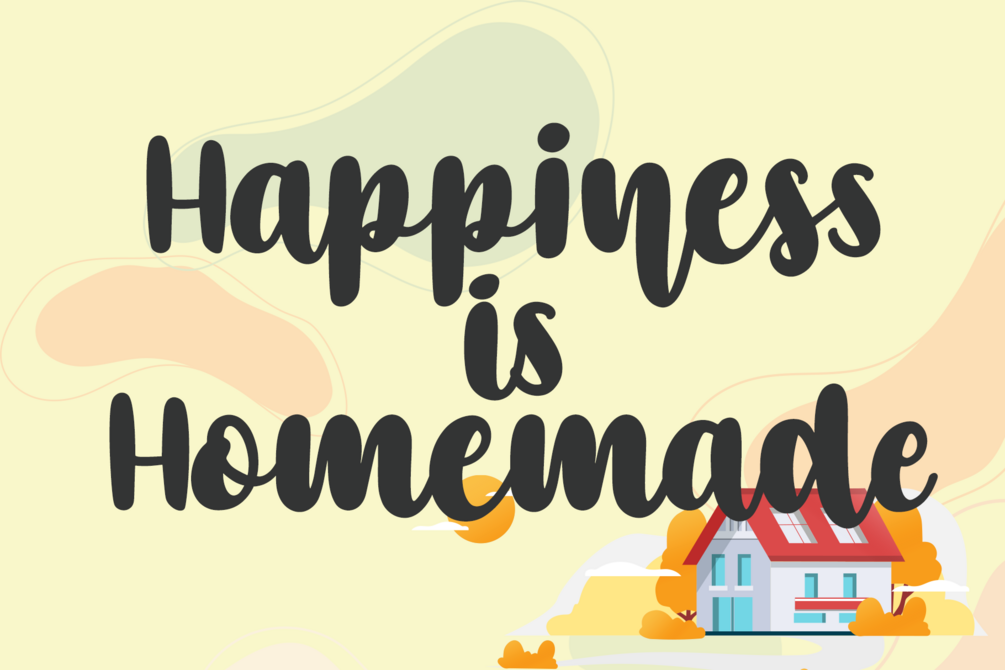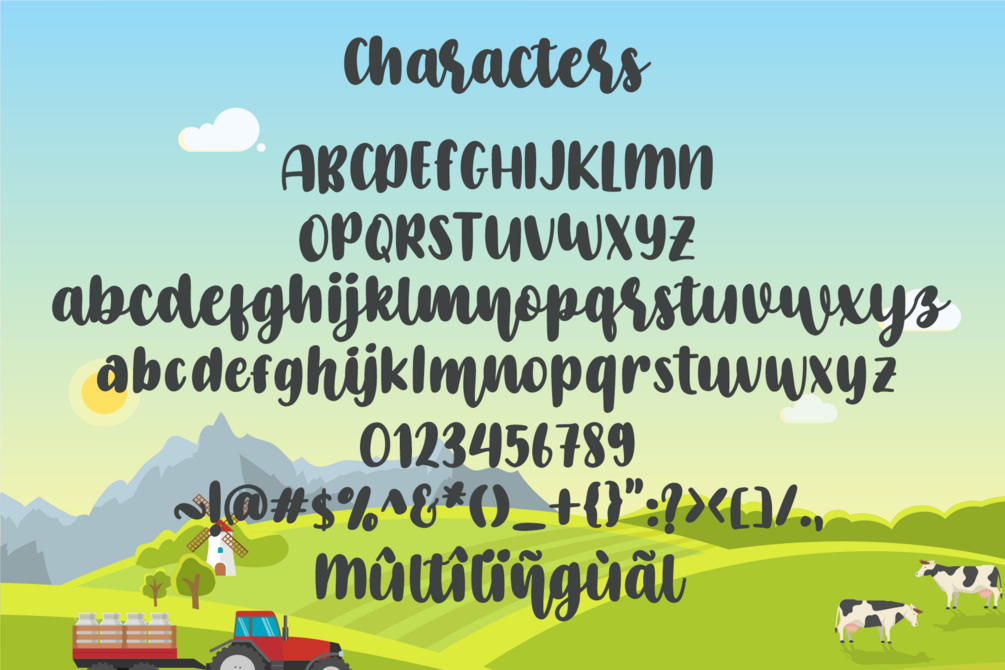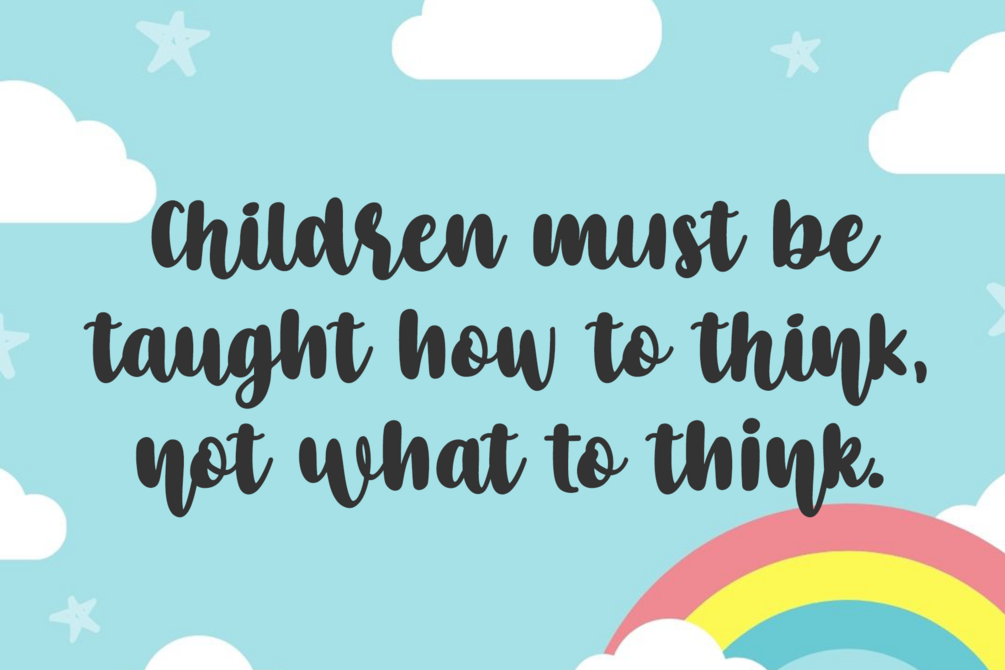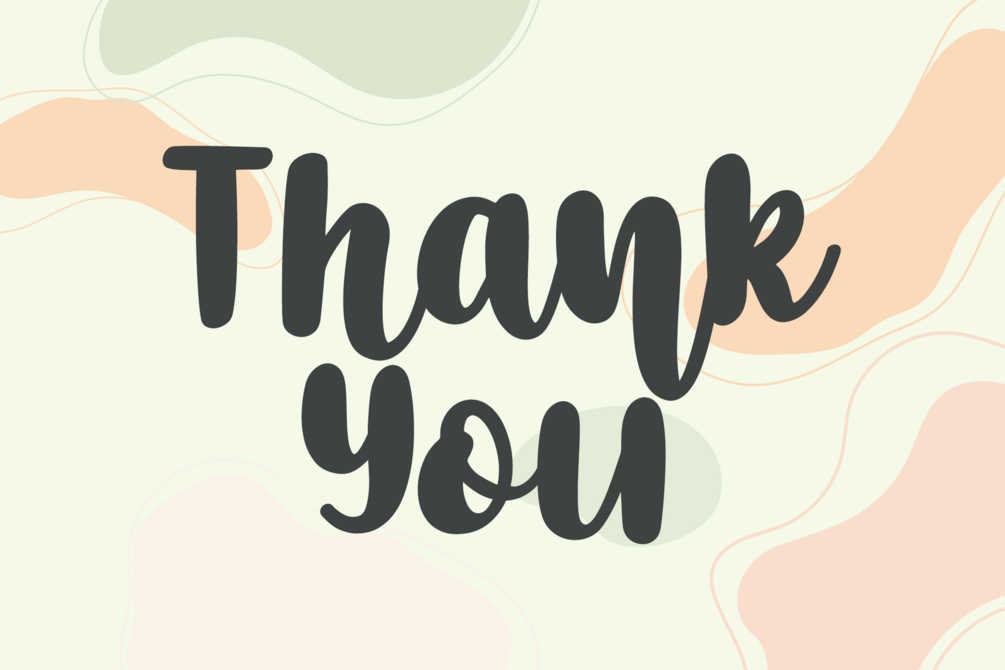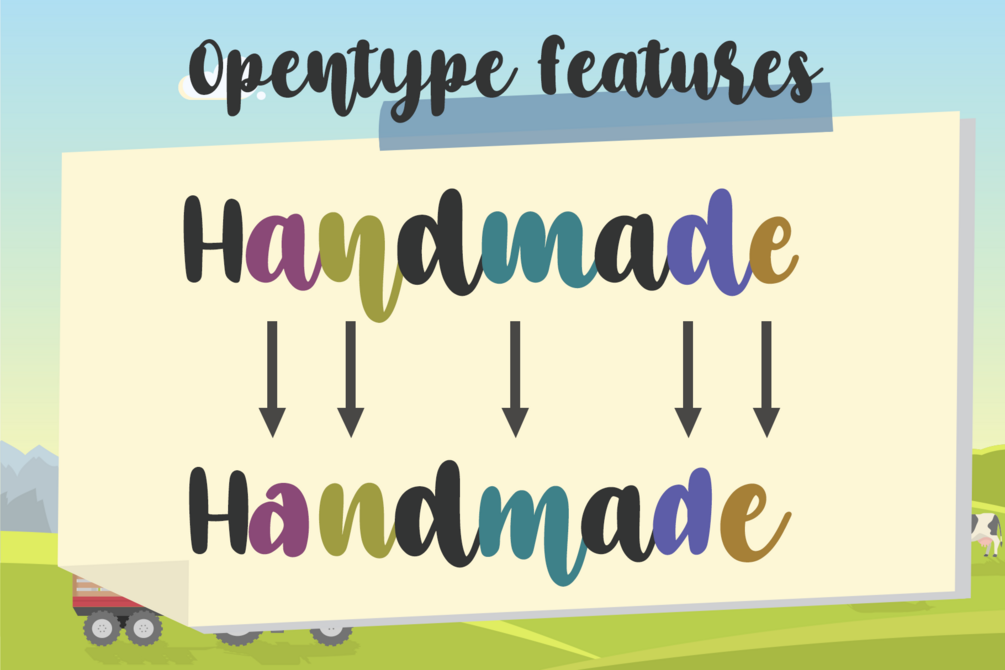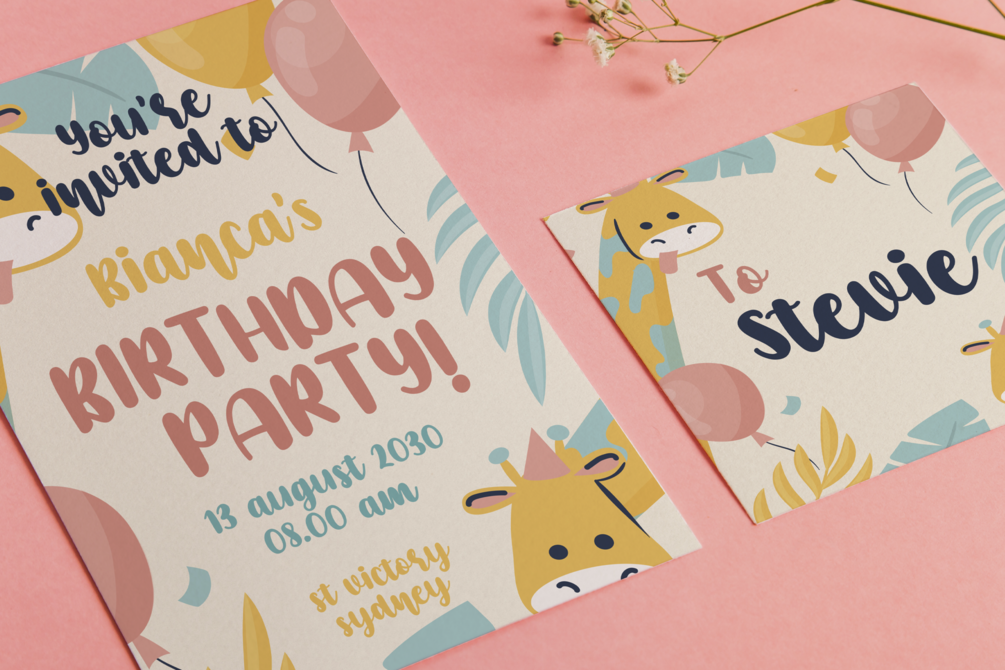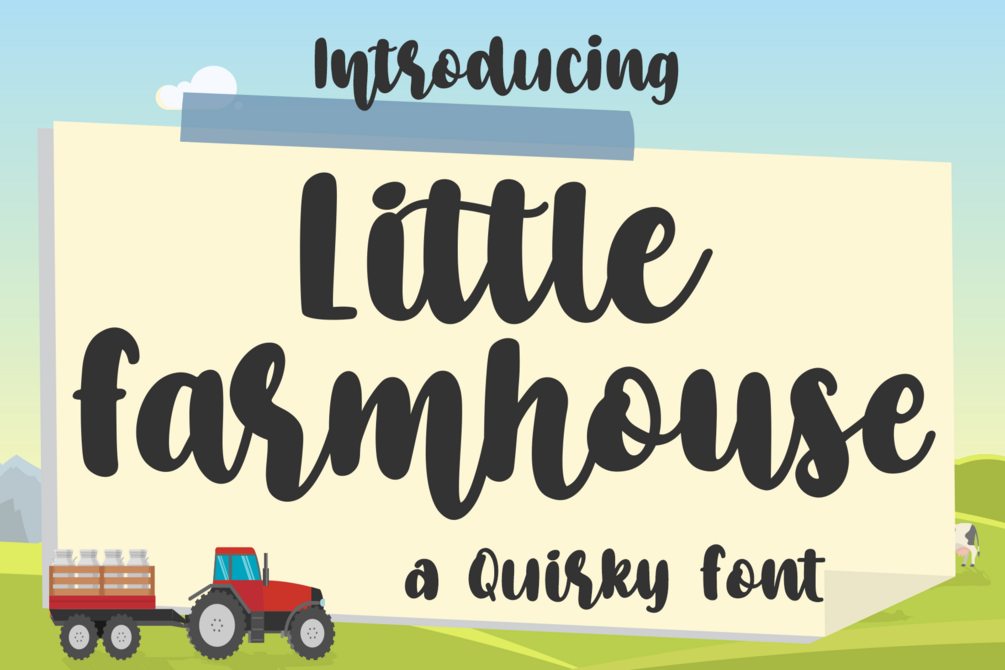
Little Farmhouse
Little Farmhouse is a fun and joyful script font with balanced thickness and playful handwritten style. This versatile farmhouse script adds charm and warmth to any design β€” perfect for wedding invitations, mugs, Christmas cards, posters, branding, quotes, home decor, and more.
PUA Encoded β€” easily access all glyphs, alternates, ligatures, and swashes without extra software. Supports multilingual characters for global use.